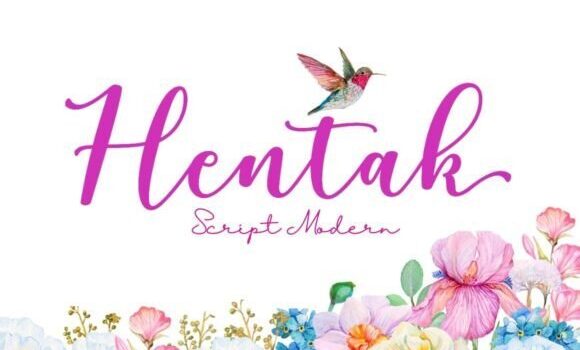
hentak
Hentak Font - Featured Image
Hentak Font – Free Download Introduction to Hentak Font The Hentak font falls under the Script category, which means it has an artistic, handwritten look with flowing and connected strokes. 📸 Preview Gallery 6 images 📌 Product Name Hentak Font